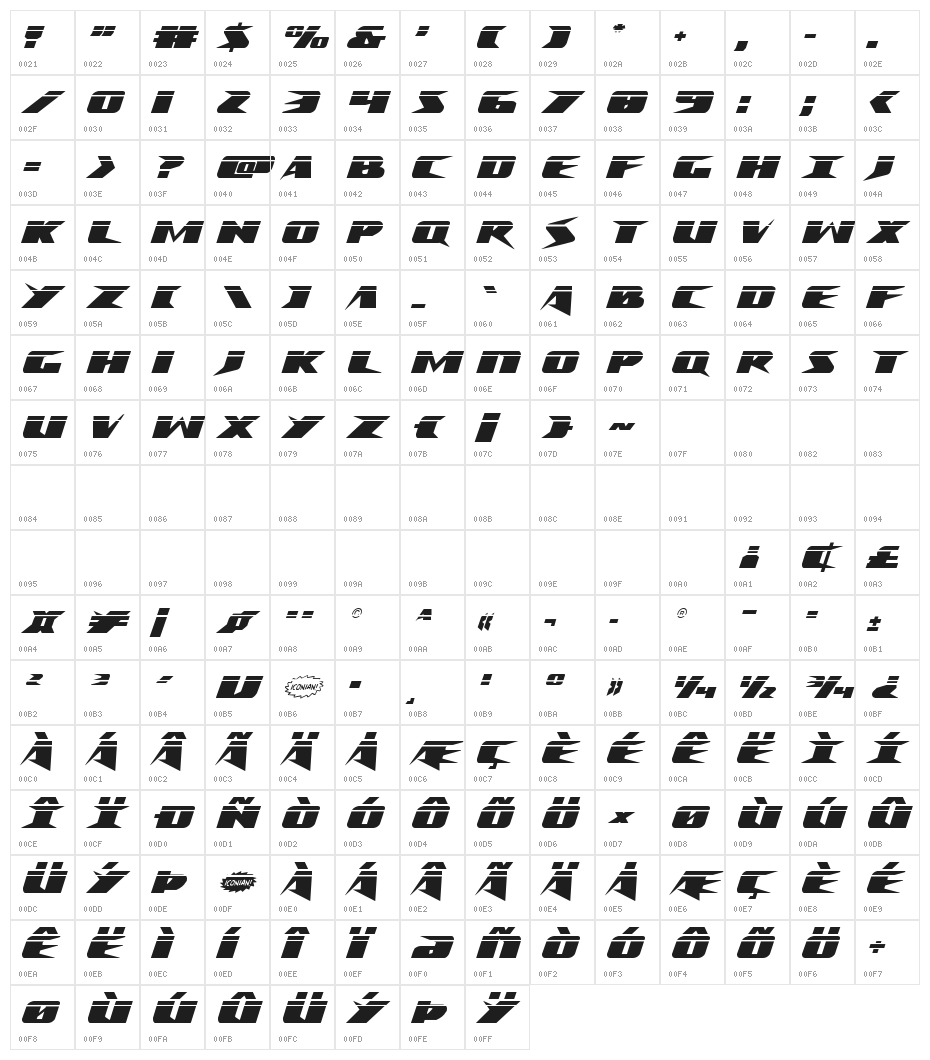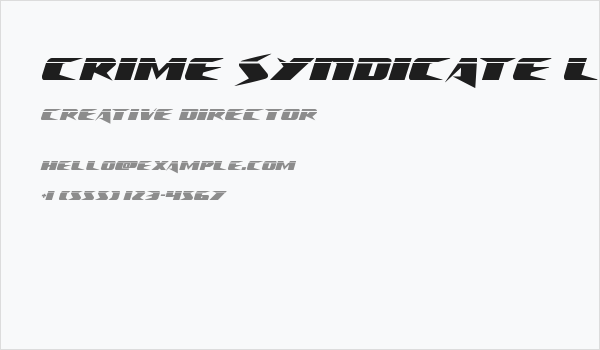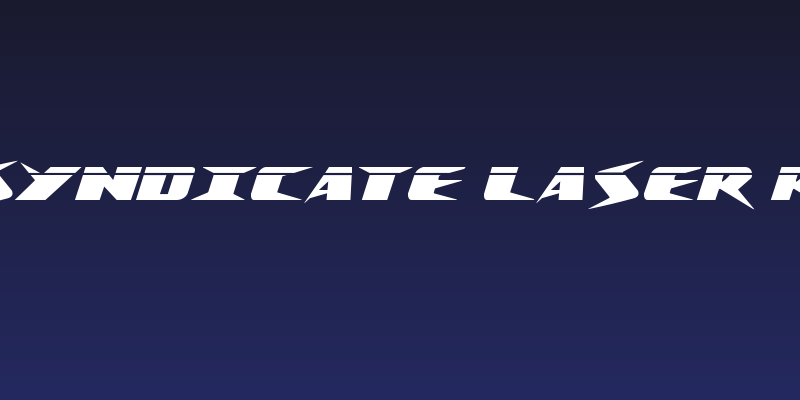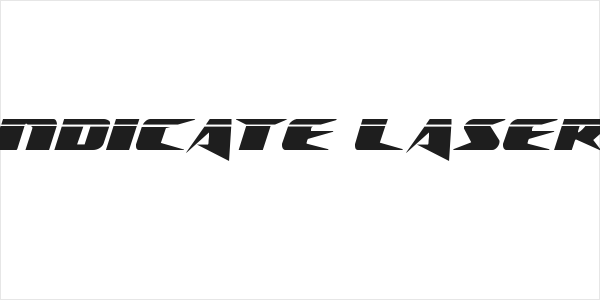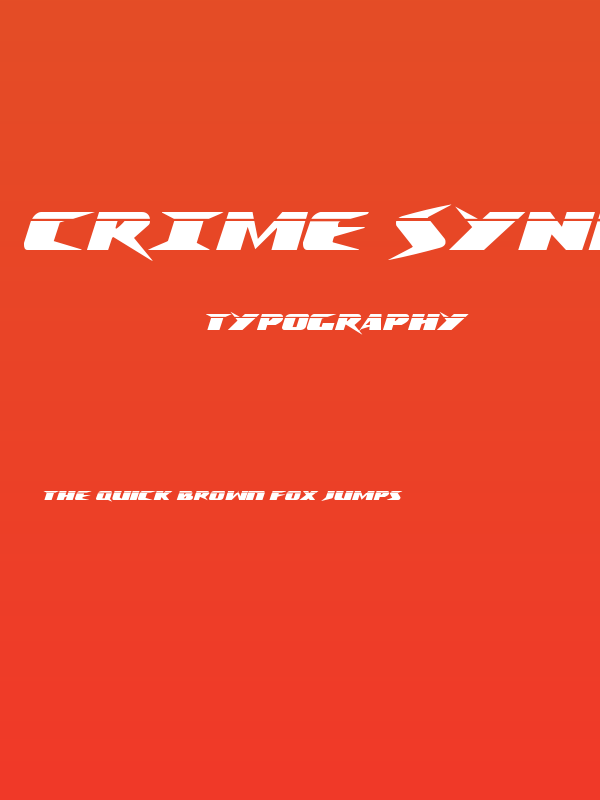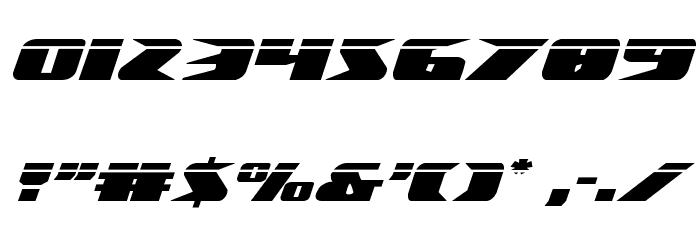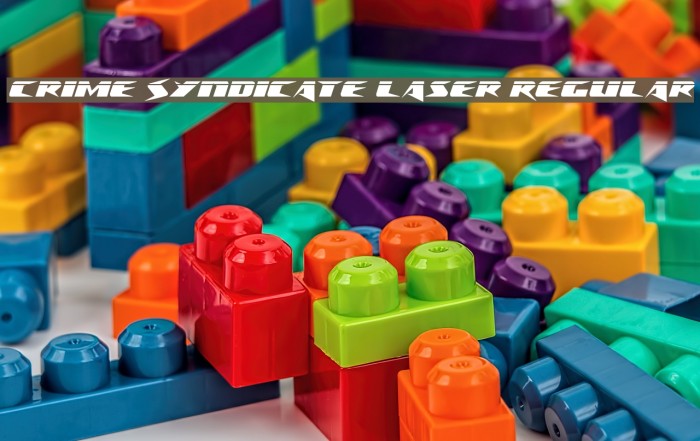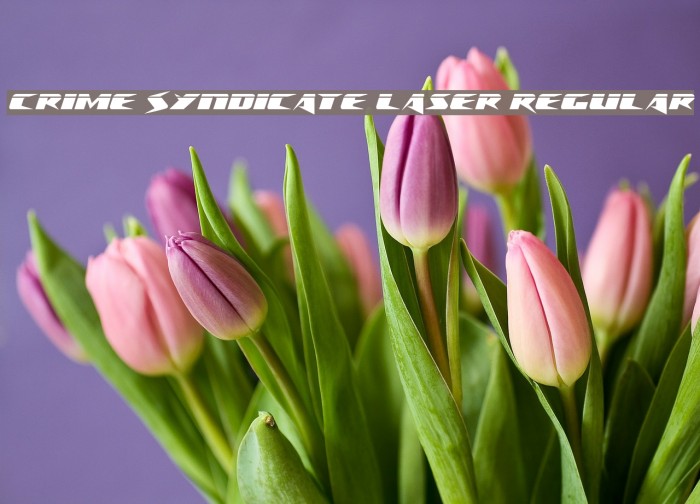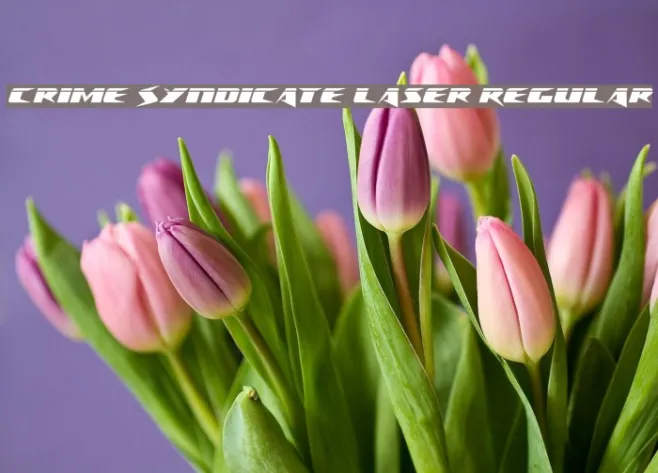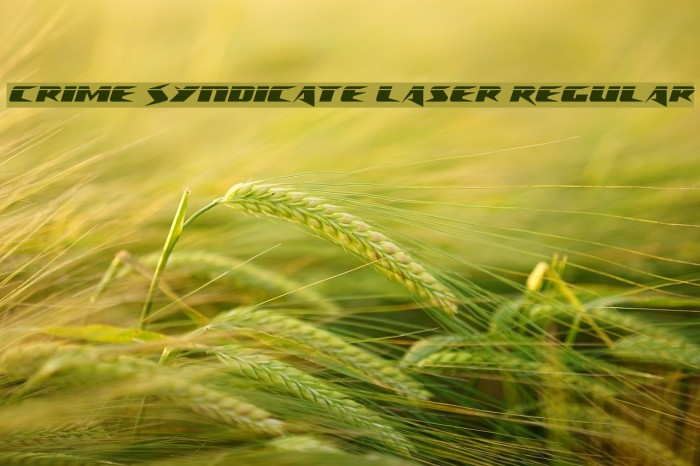
Crime Syndicate Laser Regular Font
Crime Syndicate Laser Regular Description
This font features a bold and aggressive design with sharp, angular edges and a futuristic aesthetic. The characters are heavily stylized, with a distinct slant that gives a sense of motion and energy. The uppercase and lowercase letters maintain a consistent style, with exaggerated points and cuts that create a dynamic visual impact. The numbers and special characters follow the same design principles, ensuring uniformity across all glyphs. This font's unique appearance makes it stand out, ideal for projects that require a strong, modern, and edgy look.